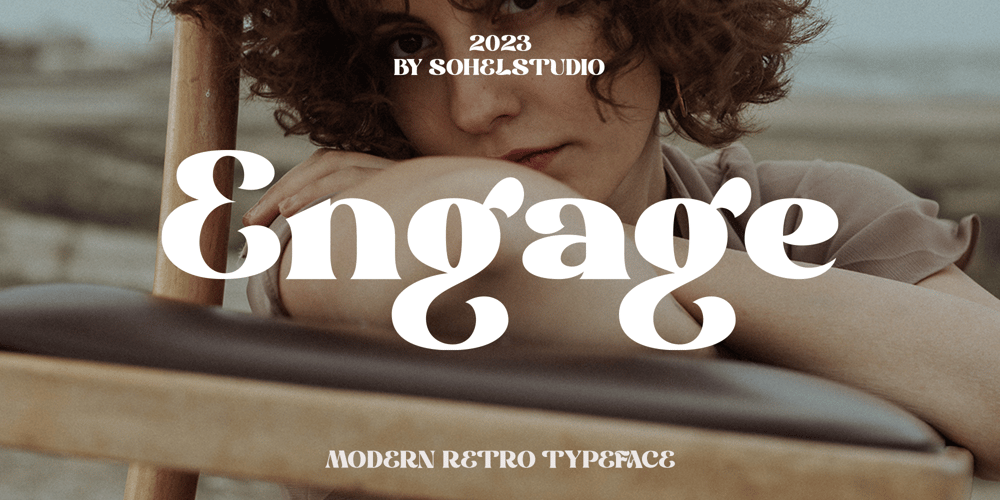
Engage Font Family was designed by Akhmad Husain Rifa’i and published by Sohel Studio. Engage contains 2 styles and family package options. “The ‘Emerge Font’ is a captivating typeface with a unique and bold serif display style. Featuring distinctive thick lines, each letter exudes strength and firmness. This font combines classic serif elements with modern touches, creating a visually striking and bold appearance. Emerge Font evokes elegance while maintaining a modern edge, making it ideal for graphic design projects, posters, and layouts that require unforgettable visual appeal.”